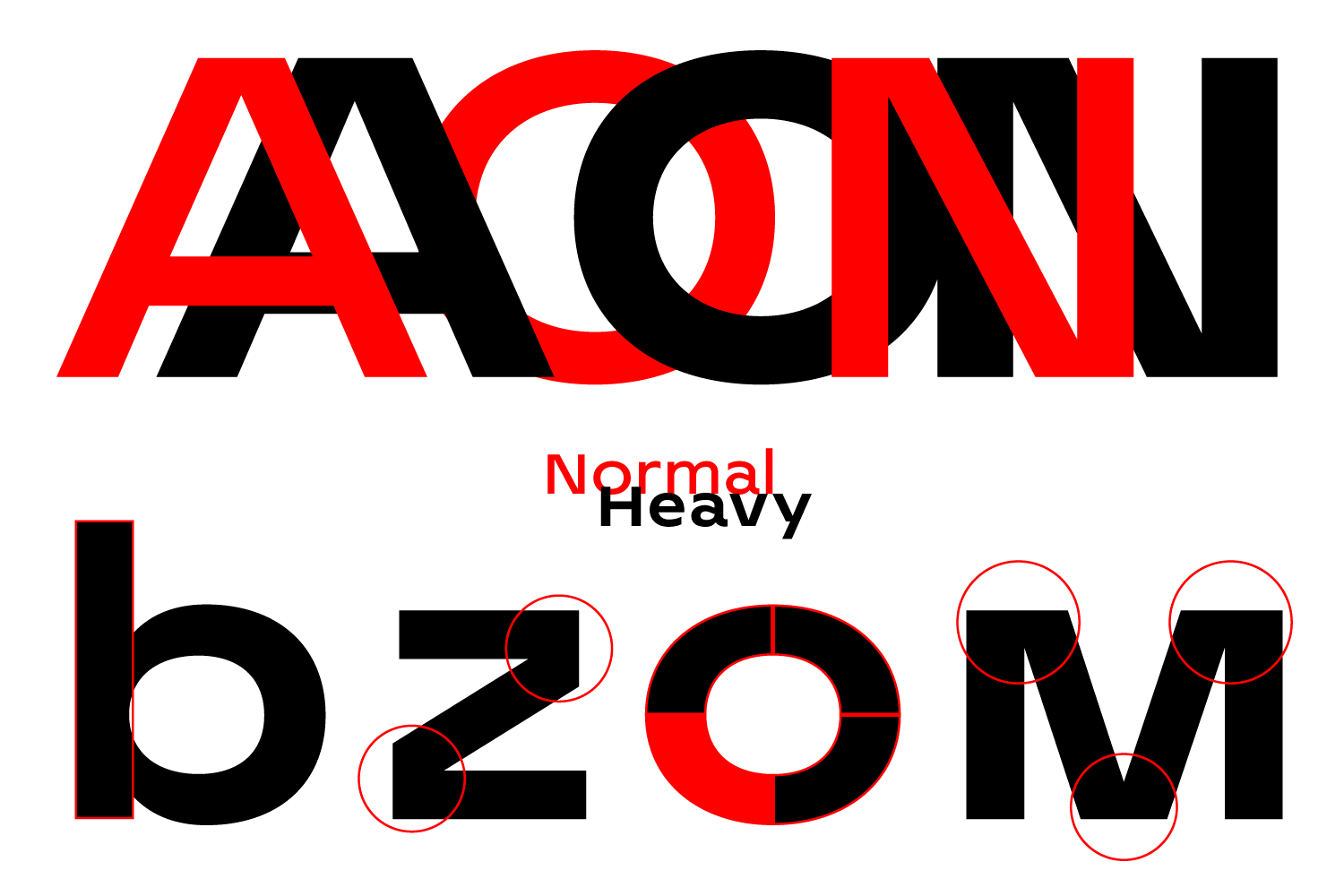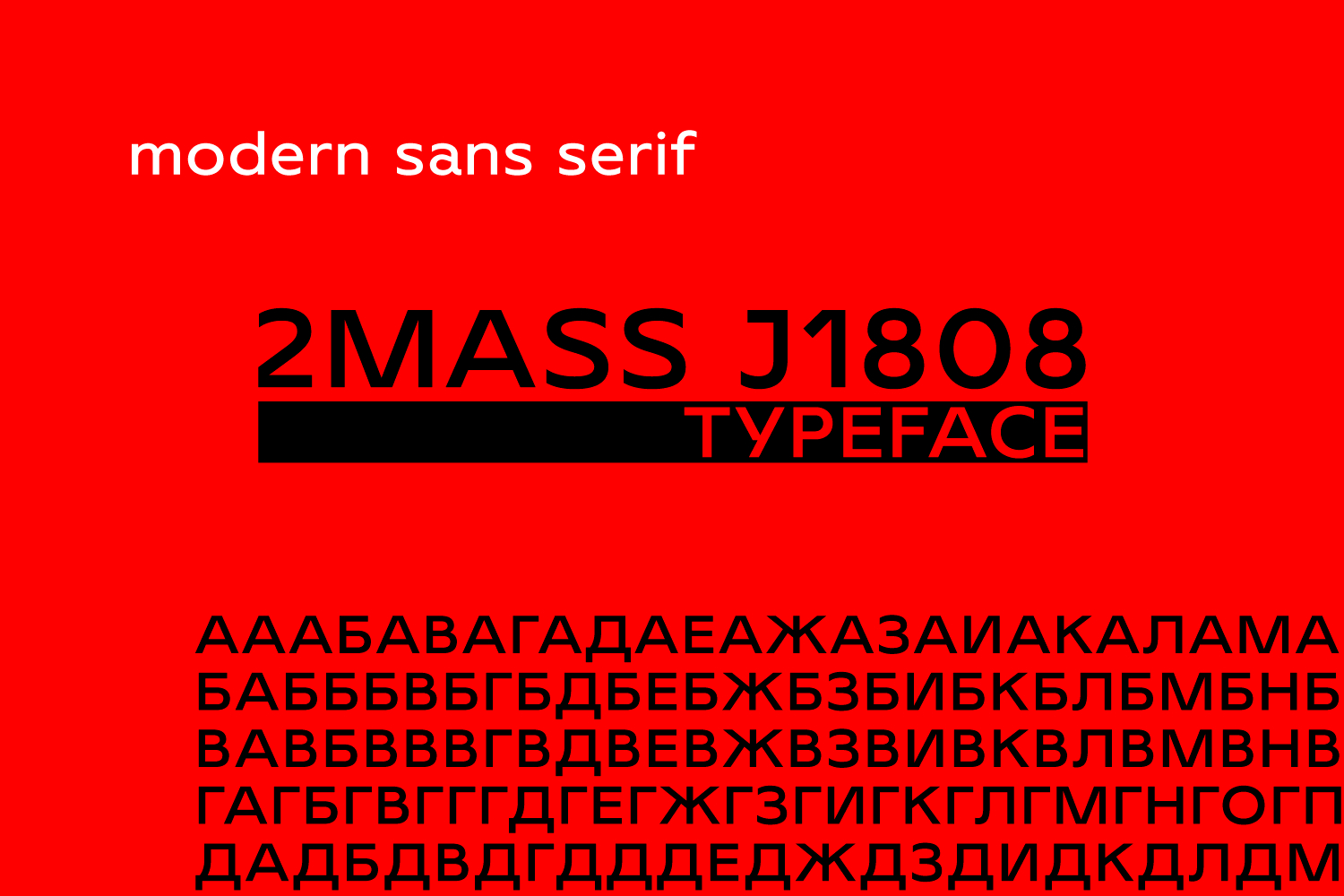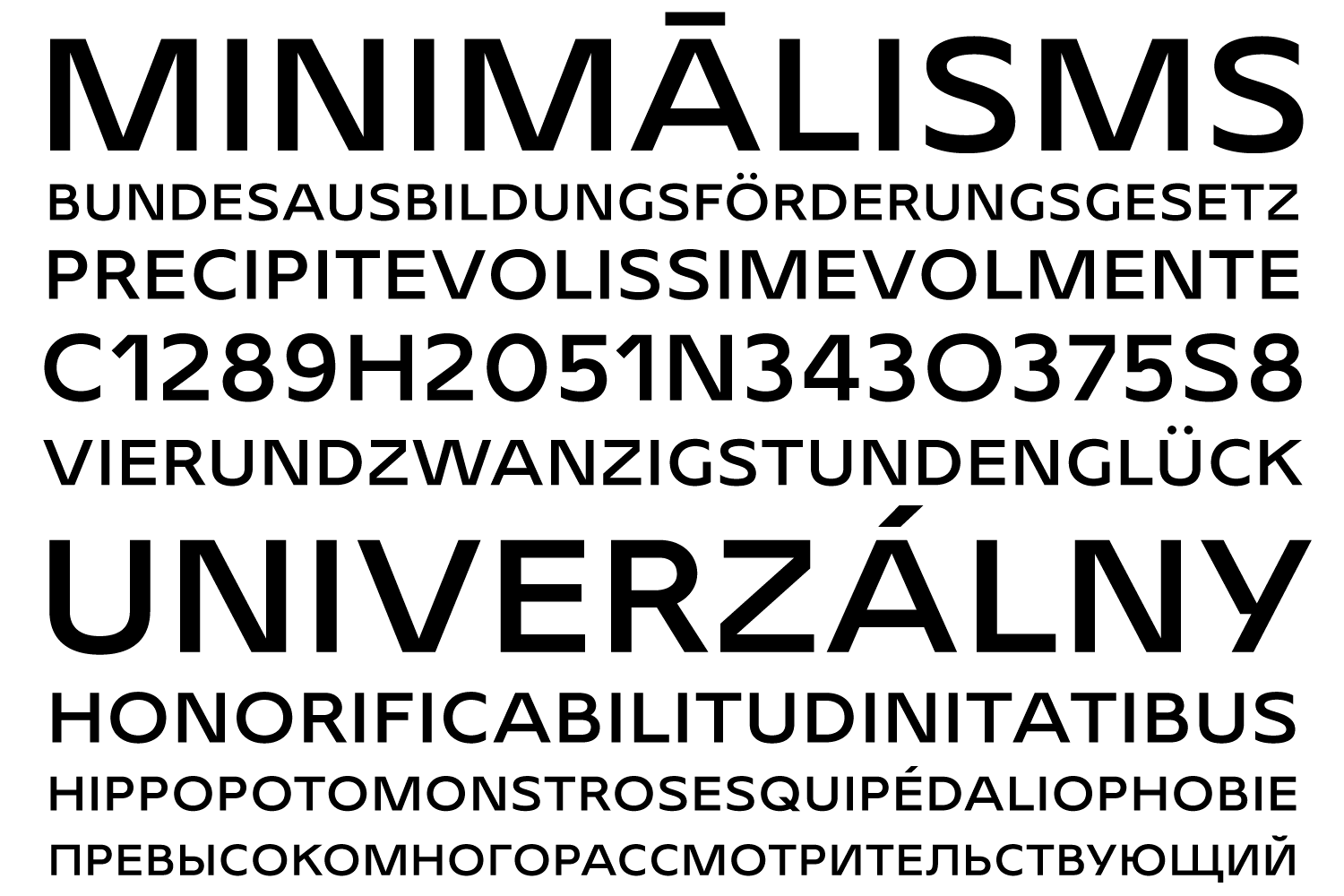
2MASS J1808 Sans Font
2MASS J1808 Sans serif Font
2Mass J1808 is a modern sans serif font. It has two styles. Supports extended Latin and Cyrillic. A characteristic feature of the font is its width and a new look at some classic characters.
2MASS J1808 is a modern sans serif with two styles. Supports Cyrillic and extended Latin.